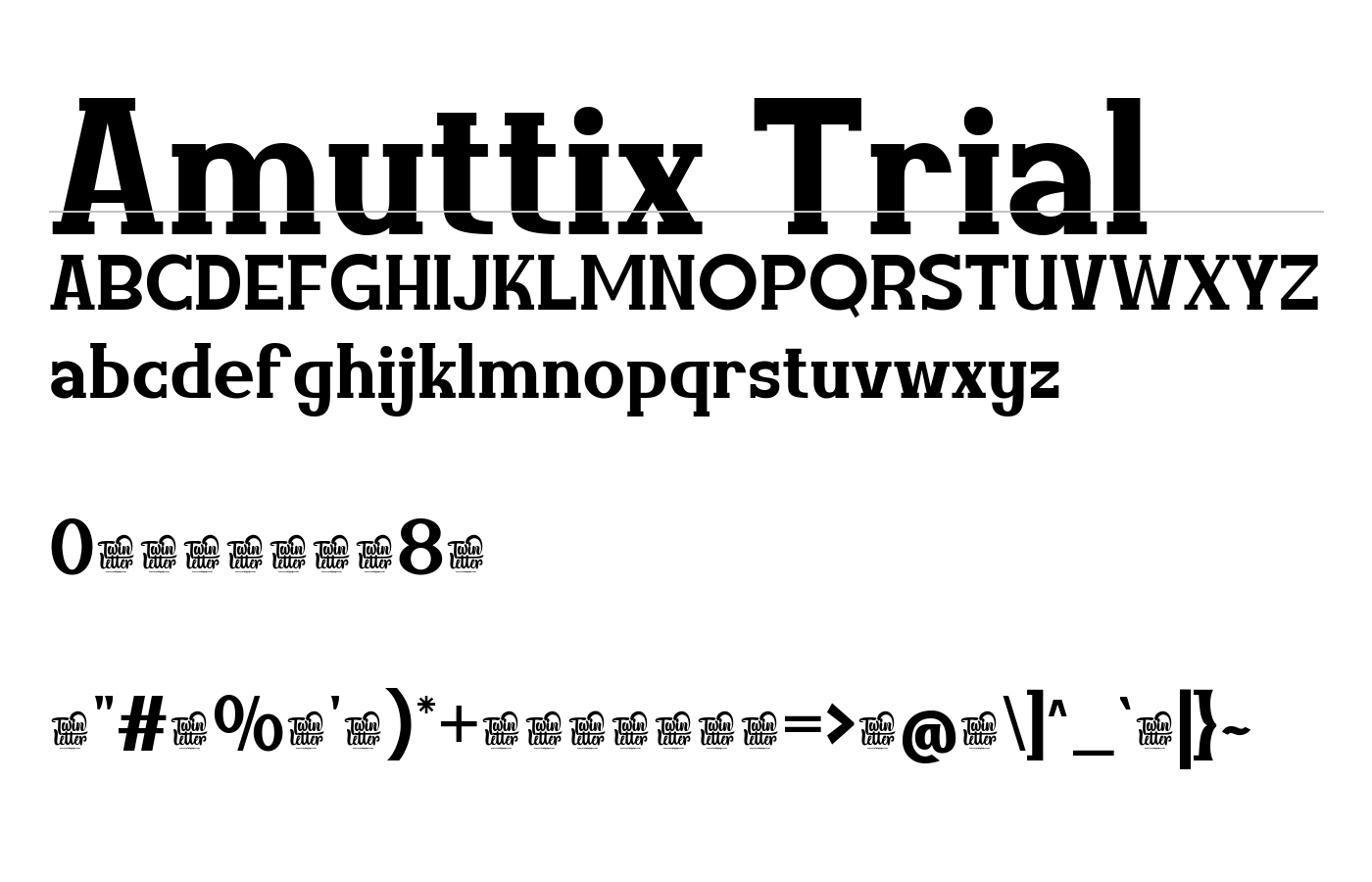
Amuttix Trial is a bold slab serif font with strong, blocky serifs and a sturdy, confident appearance. Its high contrast between thick and thin strokes, combined with a relatively tall x-height and classic letterforms, gives it a traditional yet commanding feel that suits headlines, branding, and editorial designs looking for a vintage or authoritative tone. This font works well in projects that need a clear, impactful presence with a touch of timeless style.
Amuttix Trial Font
About Amuttix Trial Font